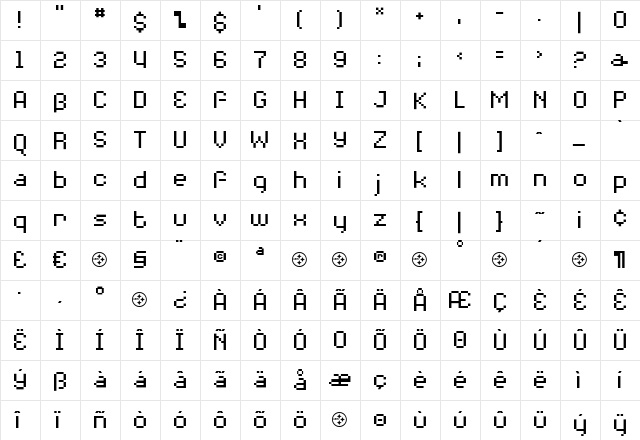
Firelight Medium
Design Context for Firelight Typeface
Firelight is a composed and adaptable typeface that performs quietly and consistently across a wide range of design contexts. The delicate stroke weight brings airiness and refinement to layouts.